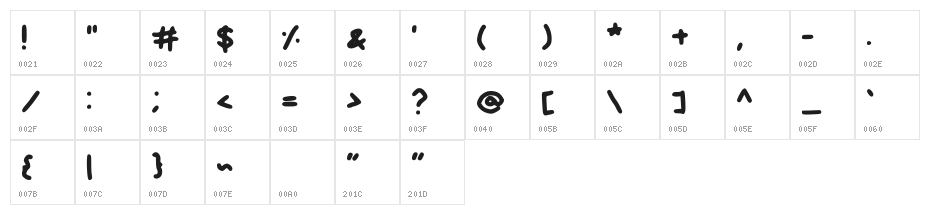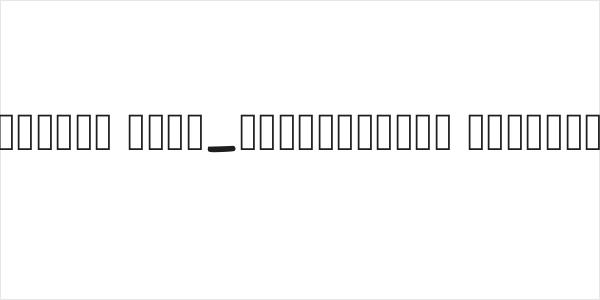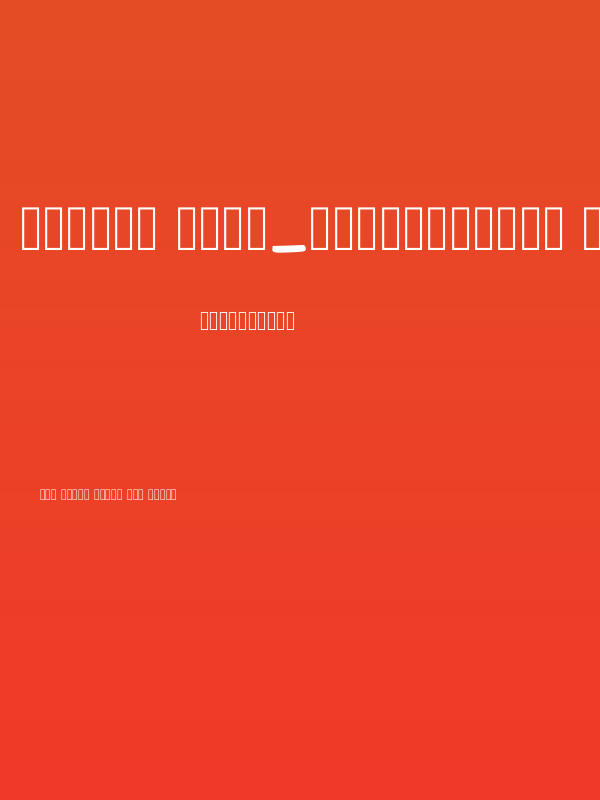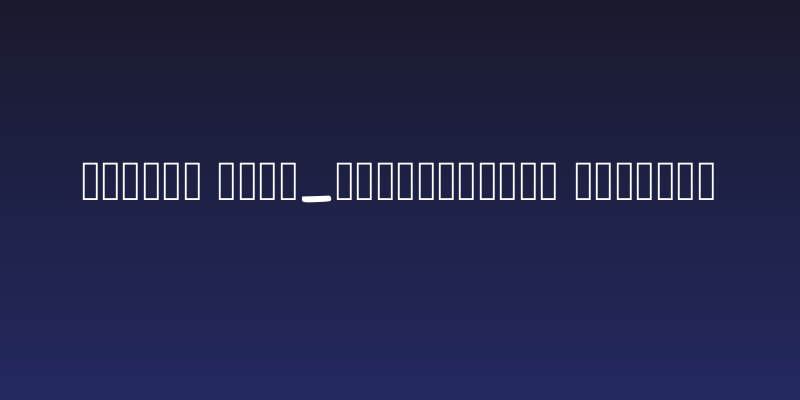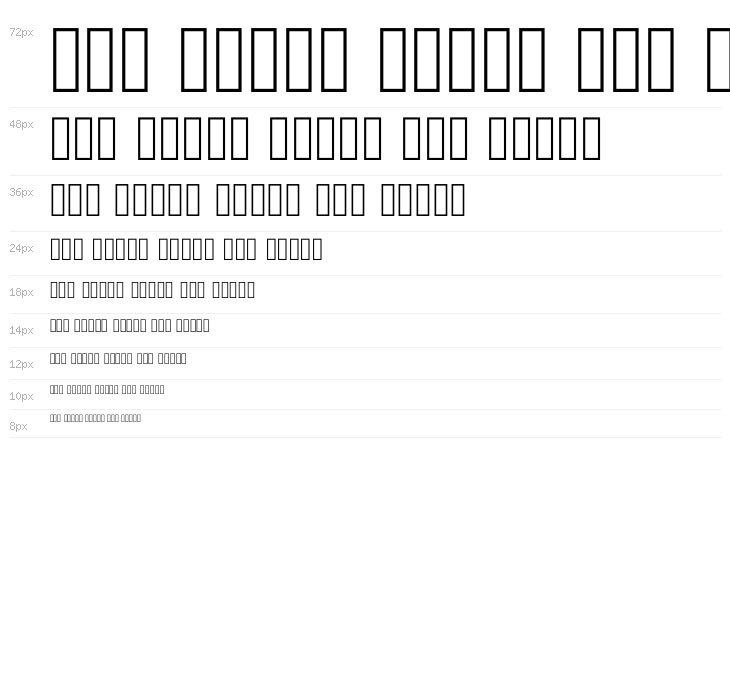
Nexzie Font_punctuation Regular Font
Nexzie Font_punctuation Regular Description
This font features a playful and bold style with a handwritten appearance. The characters are rounded and slightly irregular, giving it a casual and friendly look. The punctuation marks are distinct and maintain the same playful style, enhancing the overall aesthetic. This font is well-suited for projects that require a personal touch or a fun, informal vibe. The boldness of the characters ensures readability while maintaining a unique and engaging appearance.
| Proposed Projects | Ideal for children's books, greeting cards, playful branding, and social media graphics. |